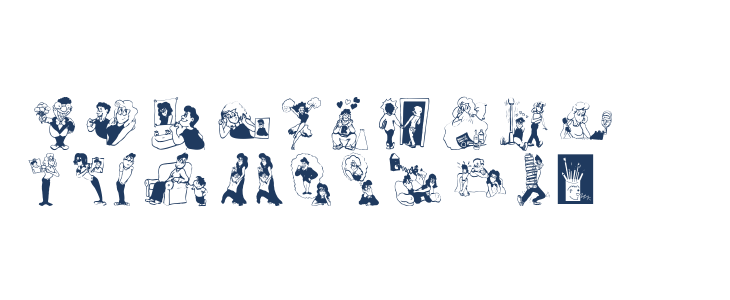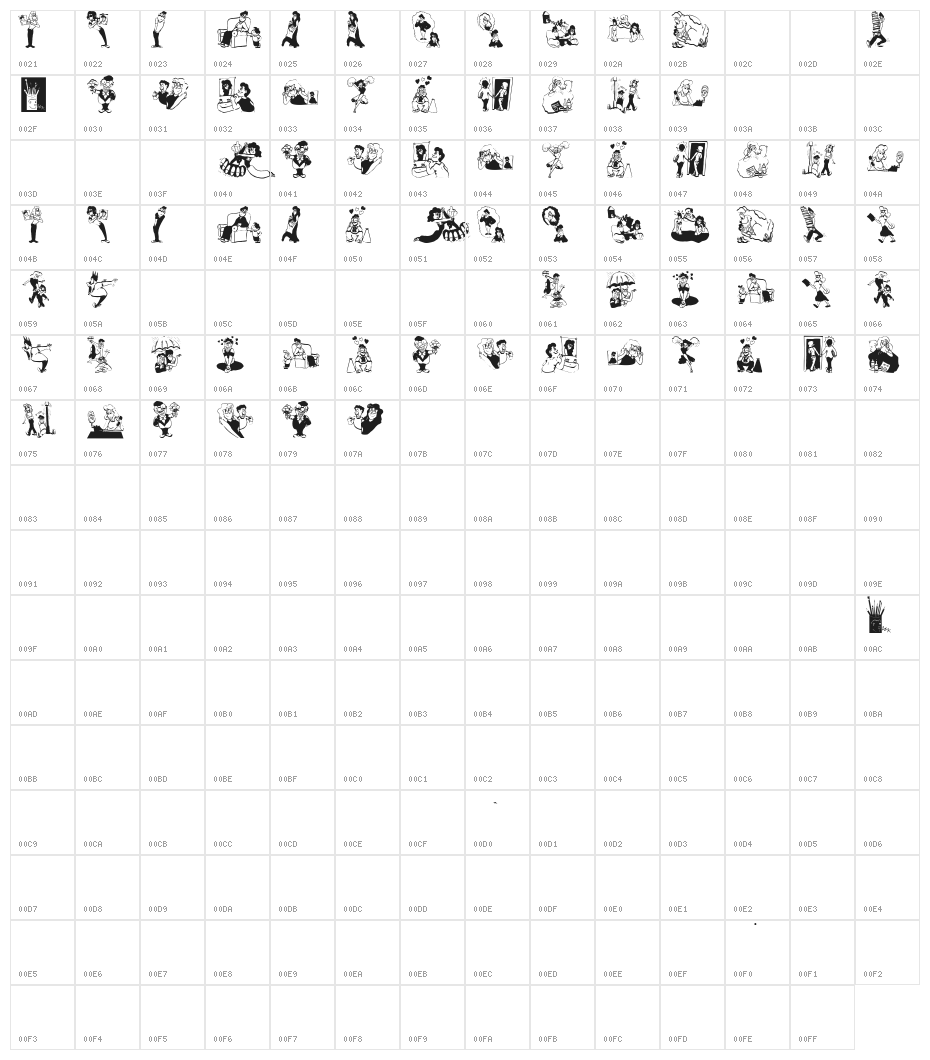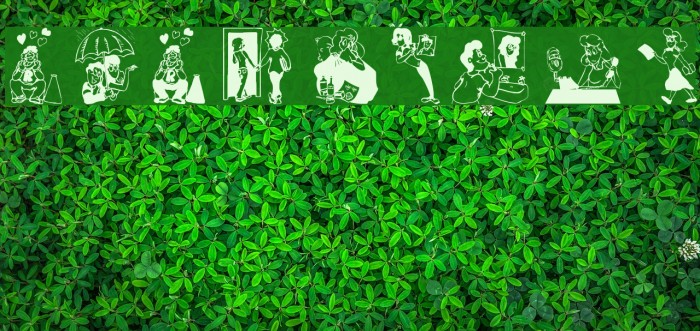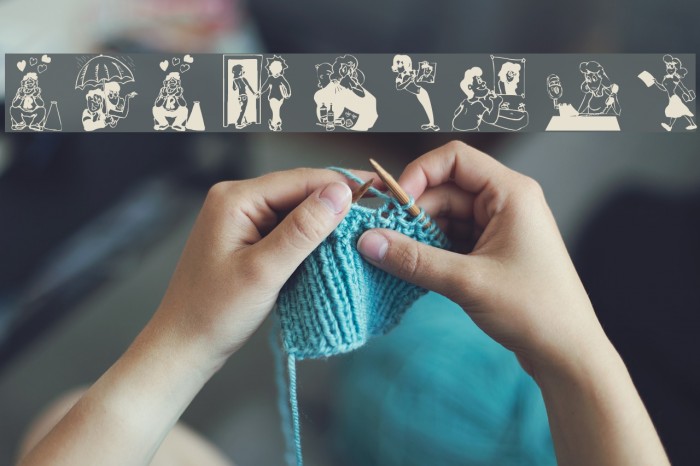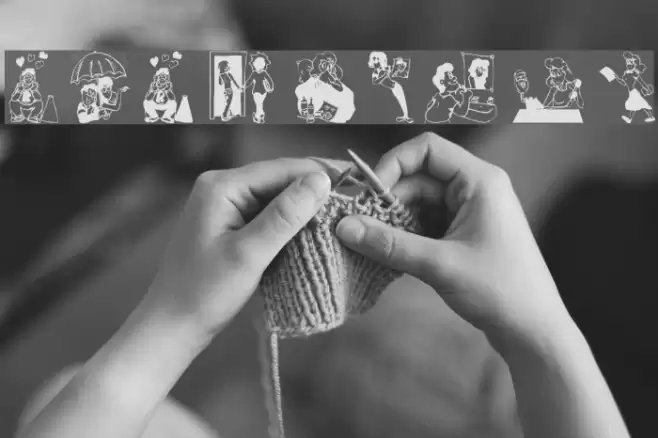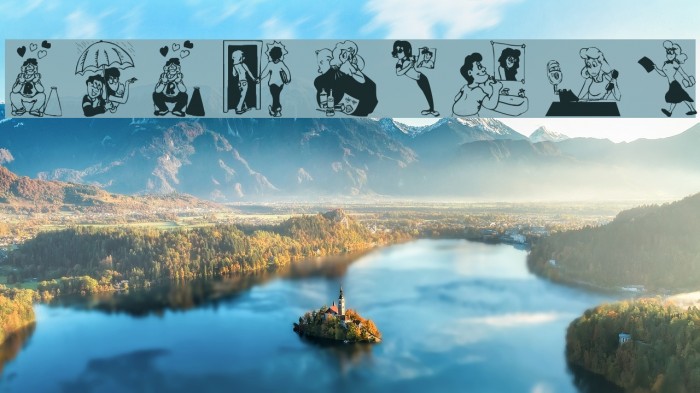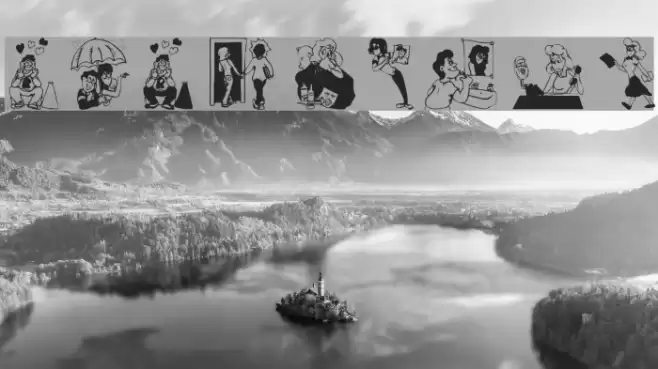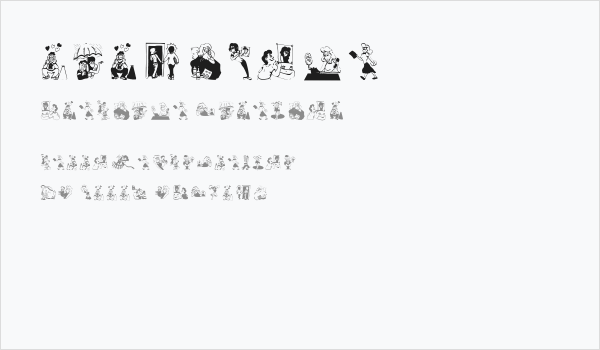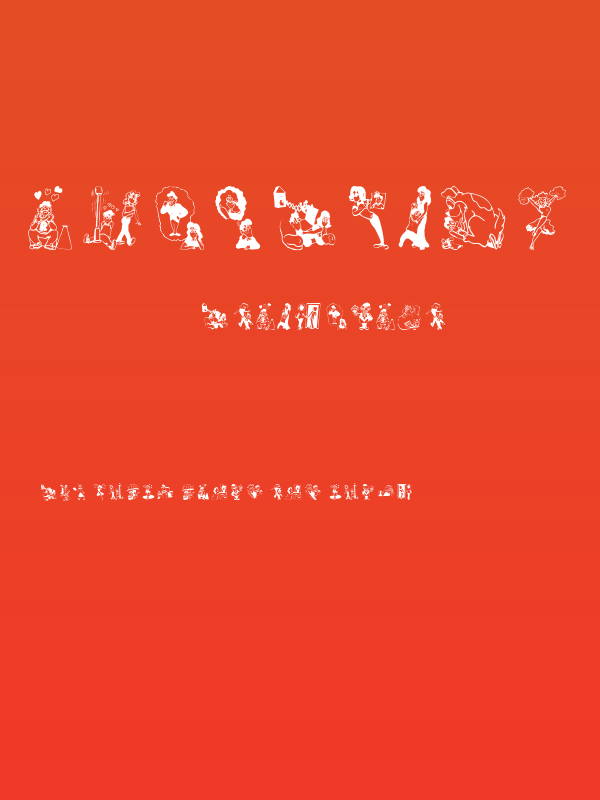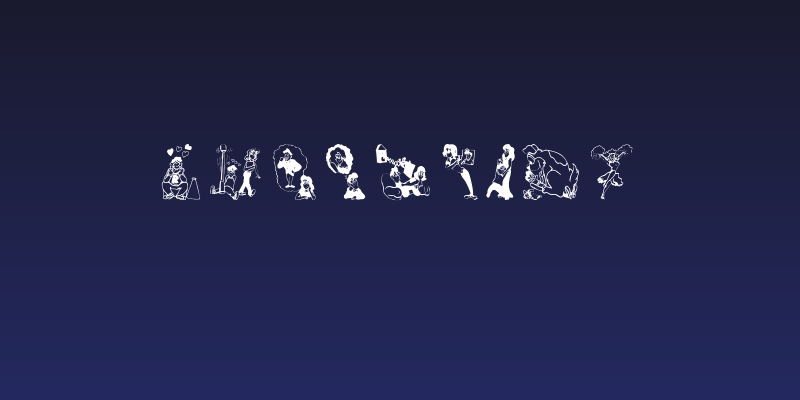
FirstLove Font
A decorative display font composed entirely of playful, hand-drawn cartoon illustrations depicting romantic and whimsical scenes instead of traditional alphanumeric characters. Each glyph is a unique vignette, making the set highly illustrative and expressive.
Overall StyleDecorative, Playful, Whimsical
Use CaseLogos, Headlines, Themed graphics, Greeting cards
Proposed ProjectsValentine's Day cards, wedding invitations, romantic event posters, playful branding, comic strips, greeting cards.